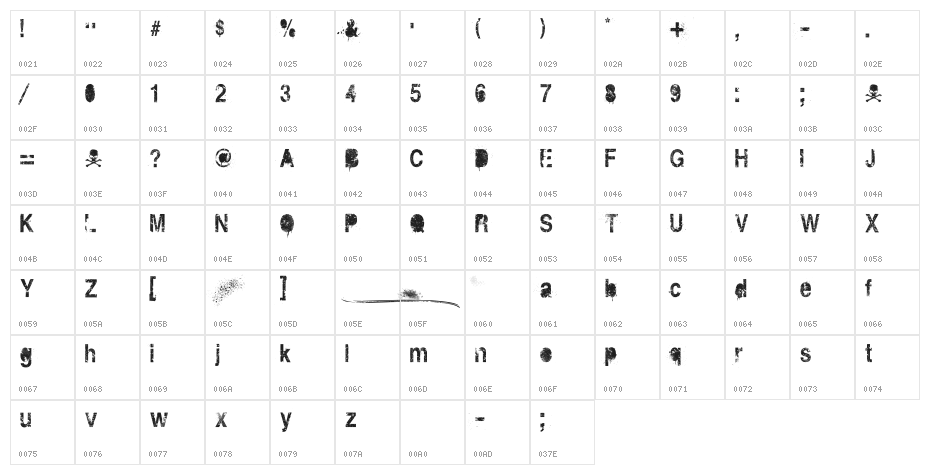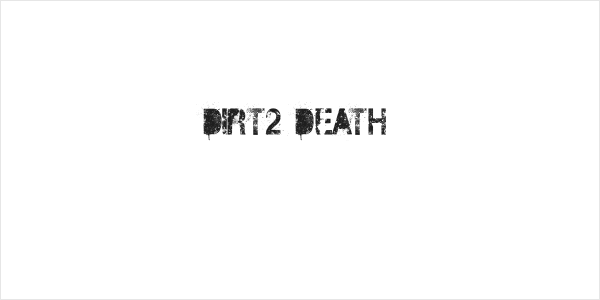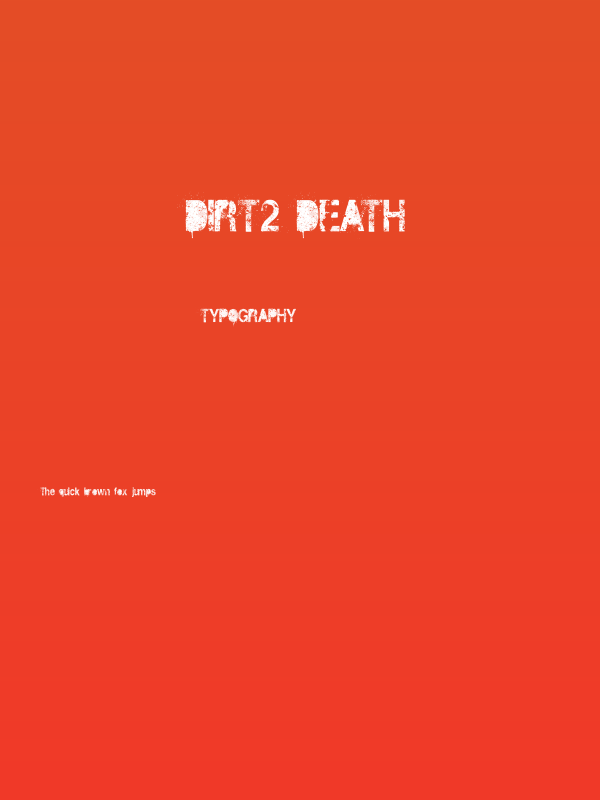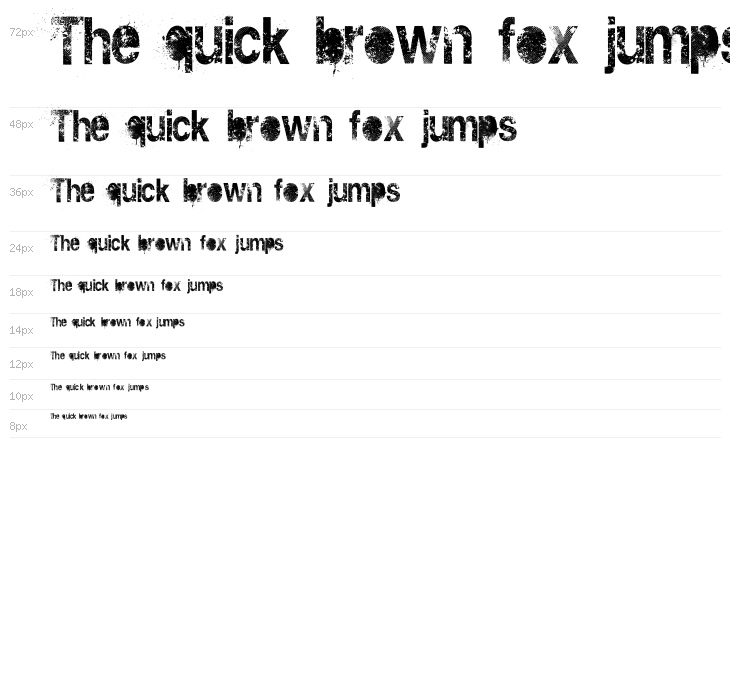
DIRT2 DEATH Font
DIRT2 DEATH Description
This font features a distressed and grungy style, characterized by its rough, textured appearance that mimics the look of decay or erosion. The letters appear as if they have been weathered over time, with irregular edges and a speckled pattern that adds to its rugged aesthetic. The uppercase and lowercase letters maintain a consistent style, with numbers and special characters following the same distressed theme. This font is ideal for projects that require a gritty, urban feel, making it perfect for designs that aim to convey a sense of rawness or edginess.
| Overall Style | Grunge, Urban, Distressed |
| Proposed Projects | Ideal for album covers, posters, streetwear branding, or any design needing a gritty, urban aesthetic. |